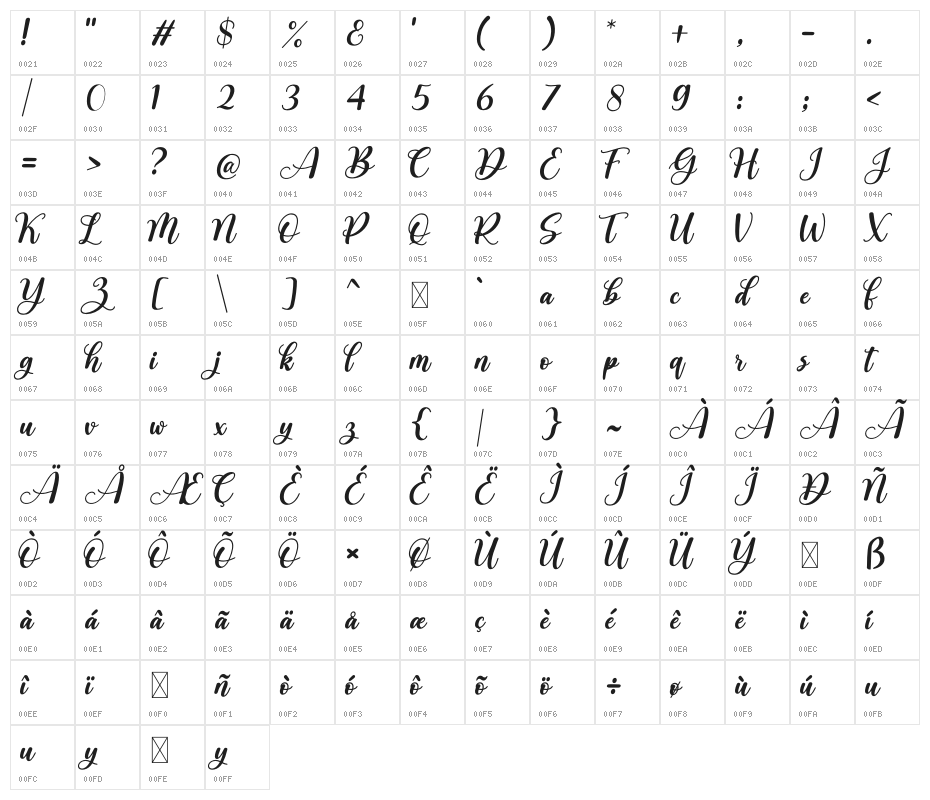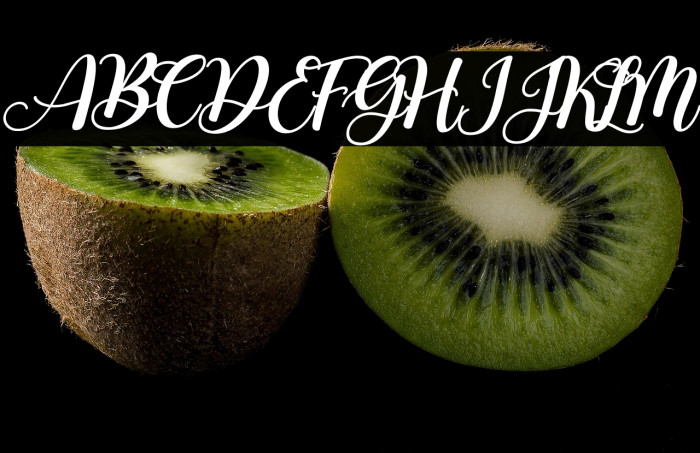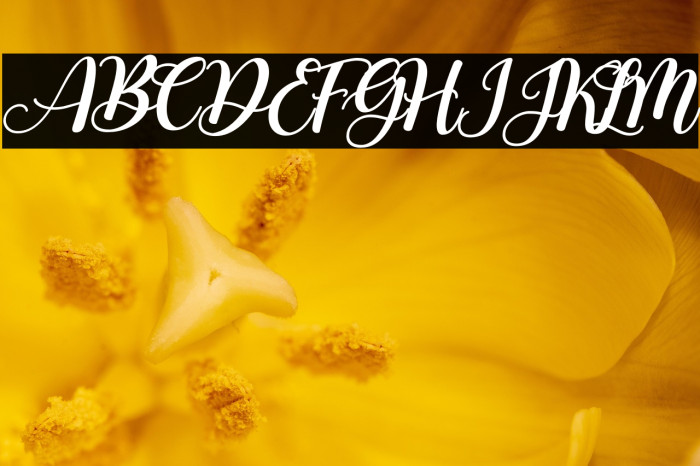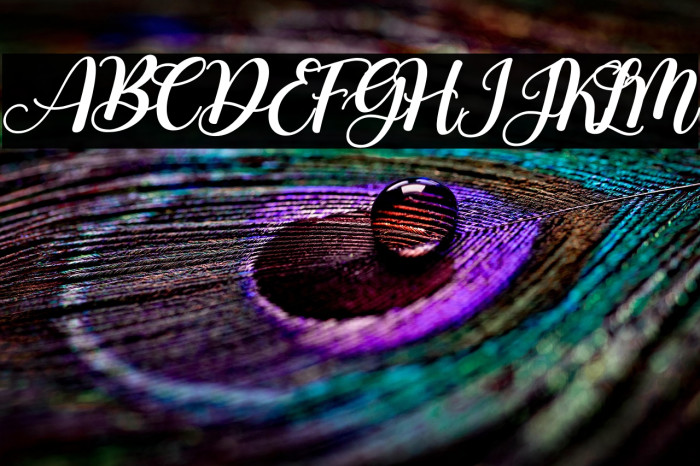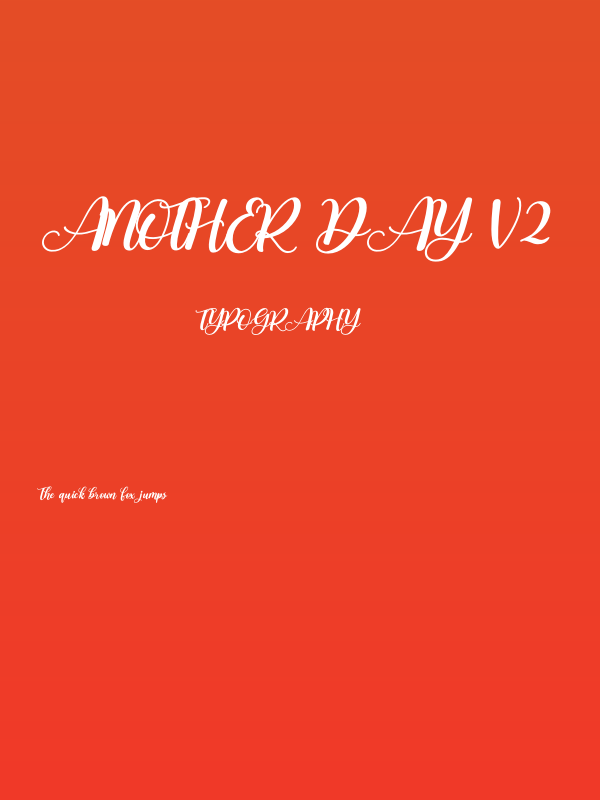
Another Day V2 Font
Another Day V2 Description
This font features an elegant and flowing script style, characterized by its smooth, cursive letterforms that convey a sense of sophistication and grace. The uppercase letters are particularly ornate, with sweeping curves and flourishes that add a decorative touch. The lowercase letters maintain a consistent flow, enhancing readability while retaining an artistic flair. Numbers and special characters are designed to match the overall aesthetic, ensuring a cohesive look across all text. This font is ideal for projects that require a touch of elegance and style, such as invitations, branding, and decorative headings.
| Overall Style | Elegant, Decorative |
| Use Case | Headlines, Invitations, Branding |
| Proposed Projects | Ideal for wedding invitations, elegant branding, decorative headings, and artistic designs. |